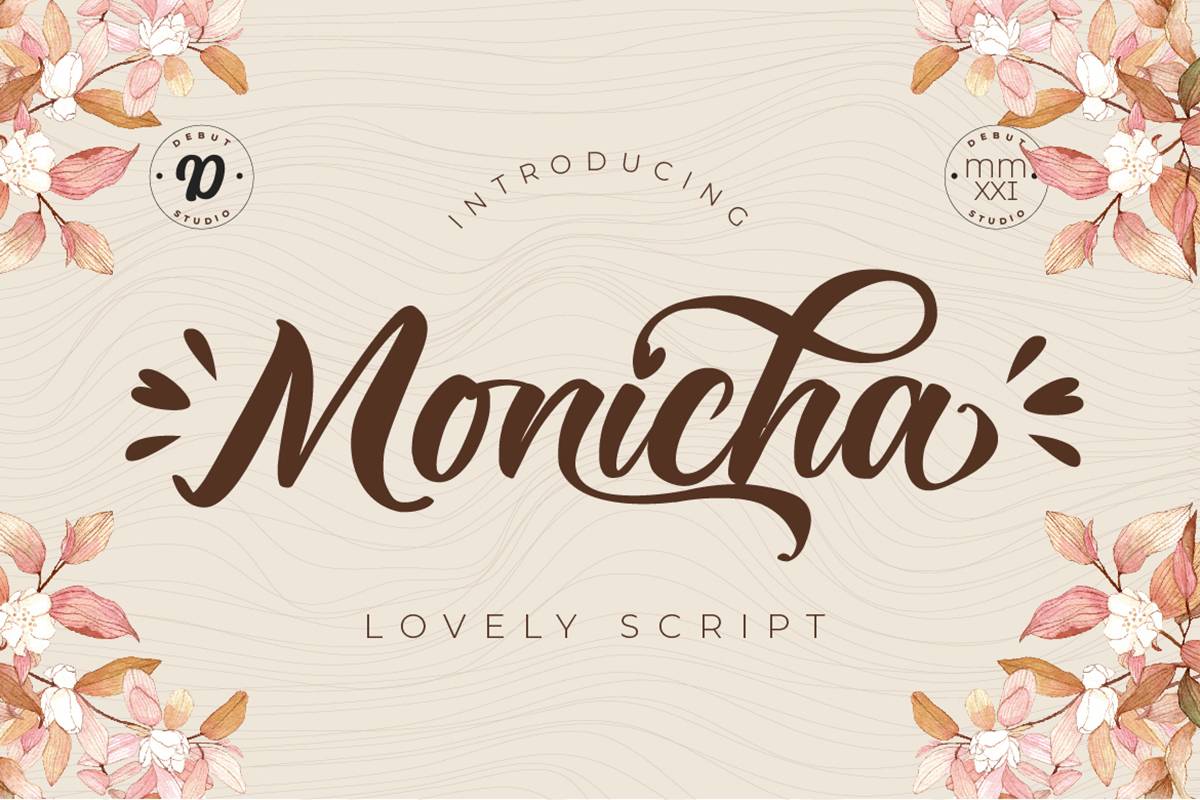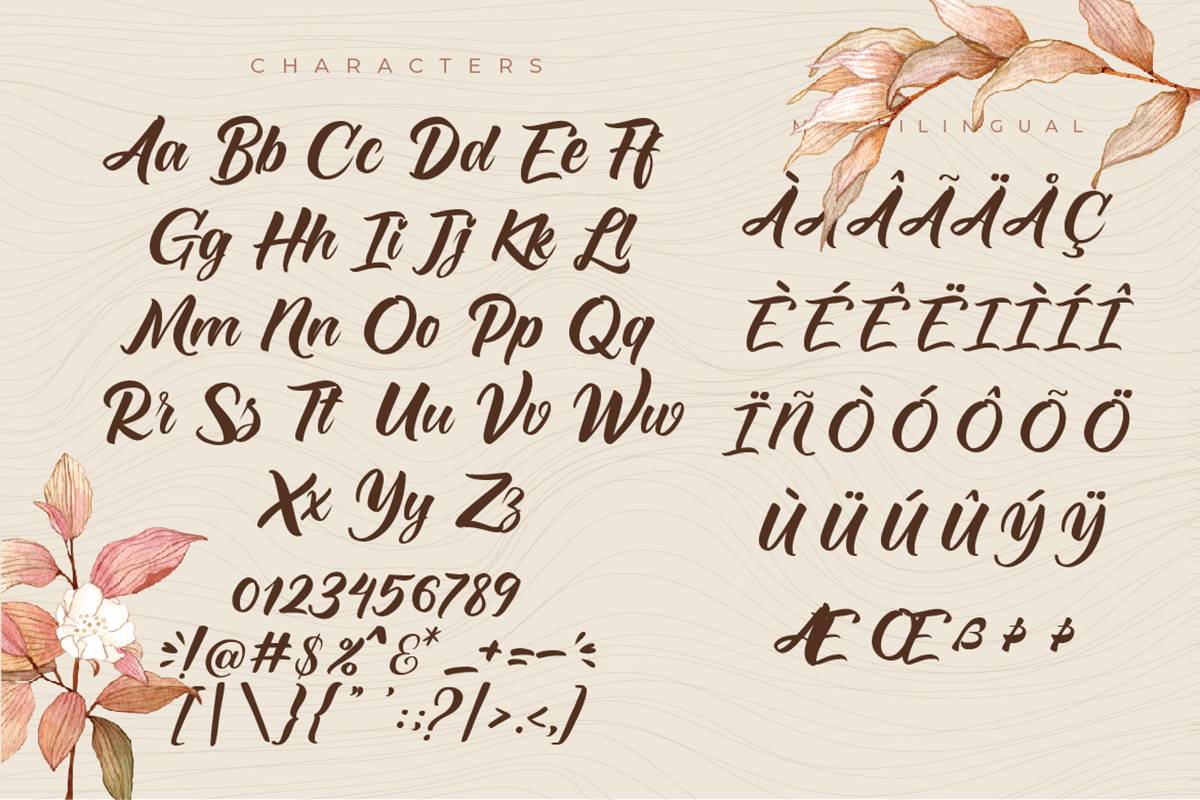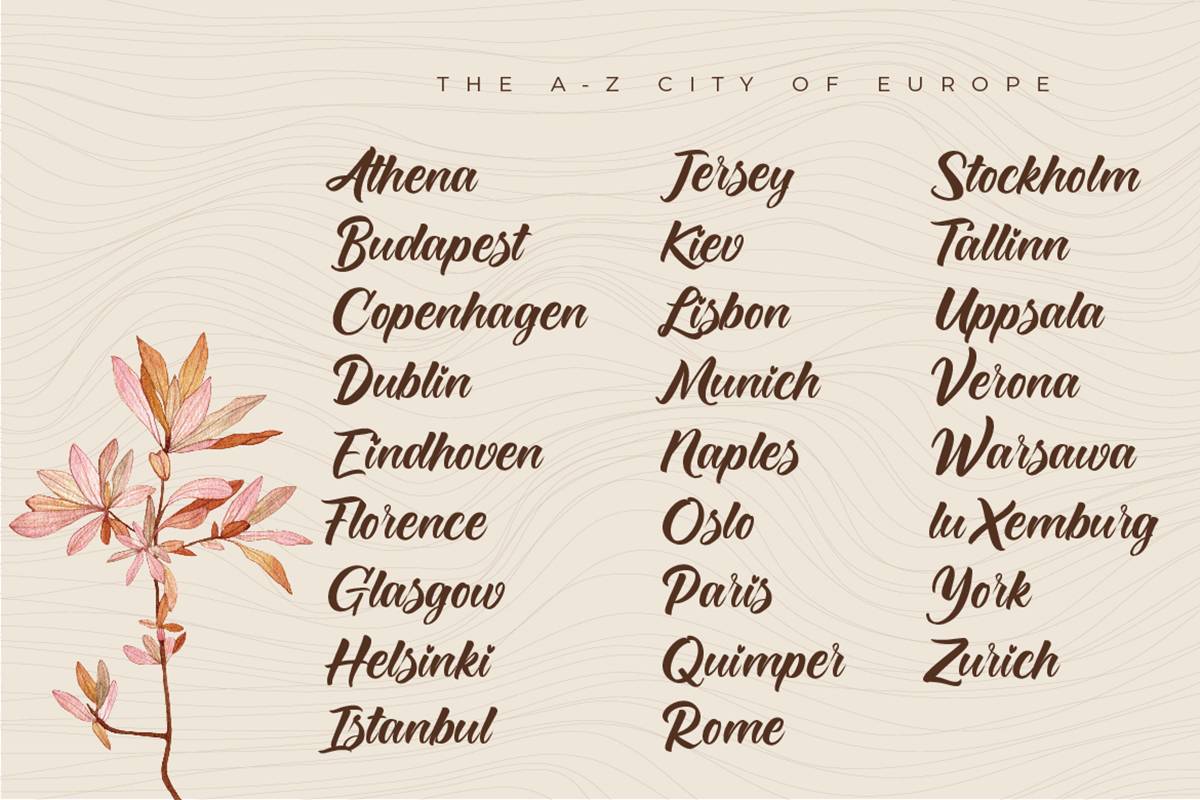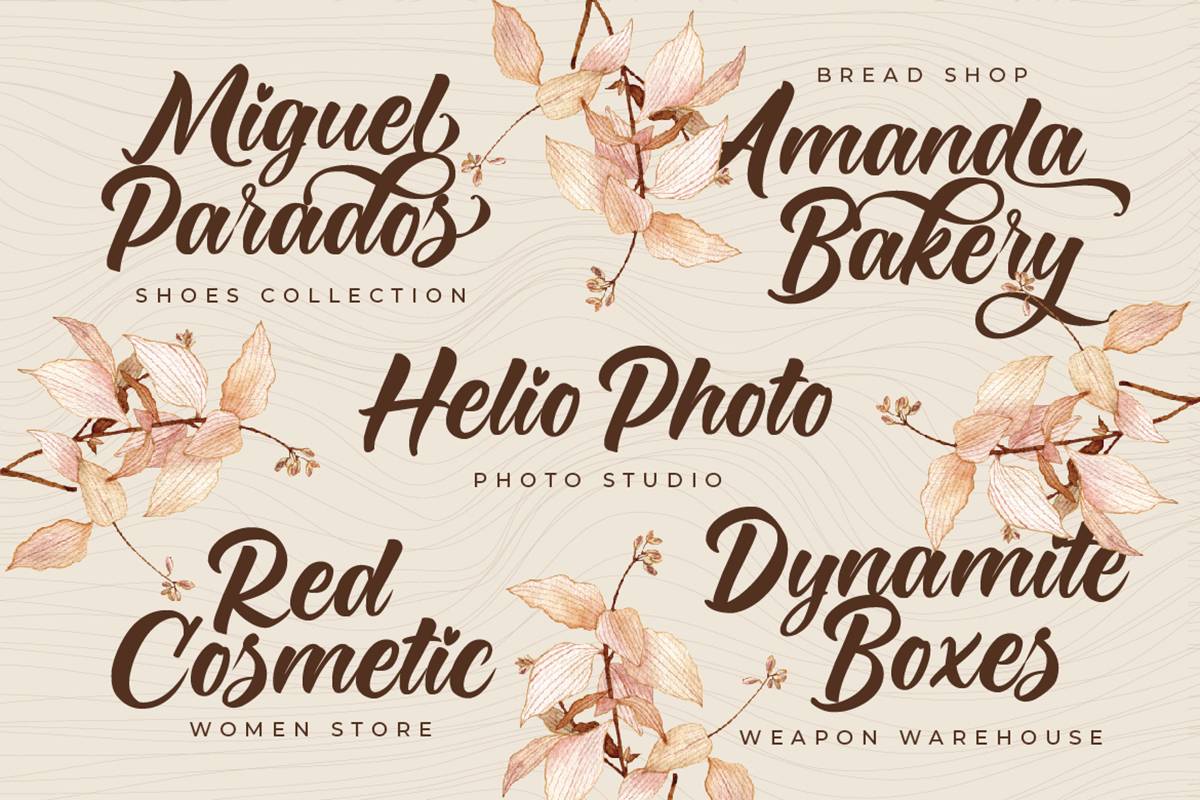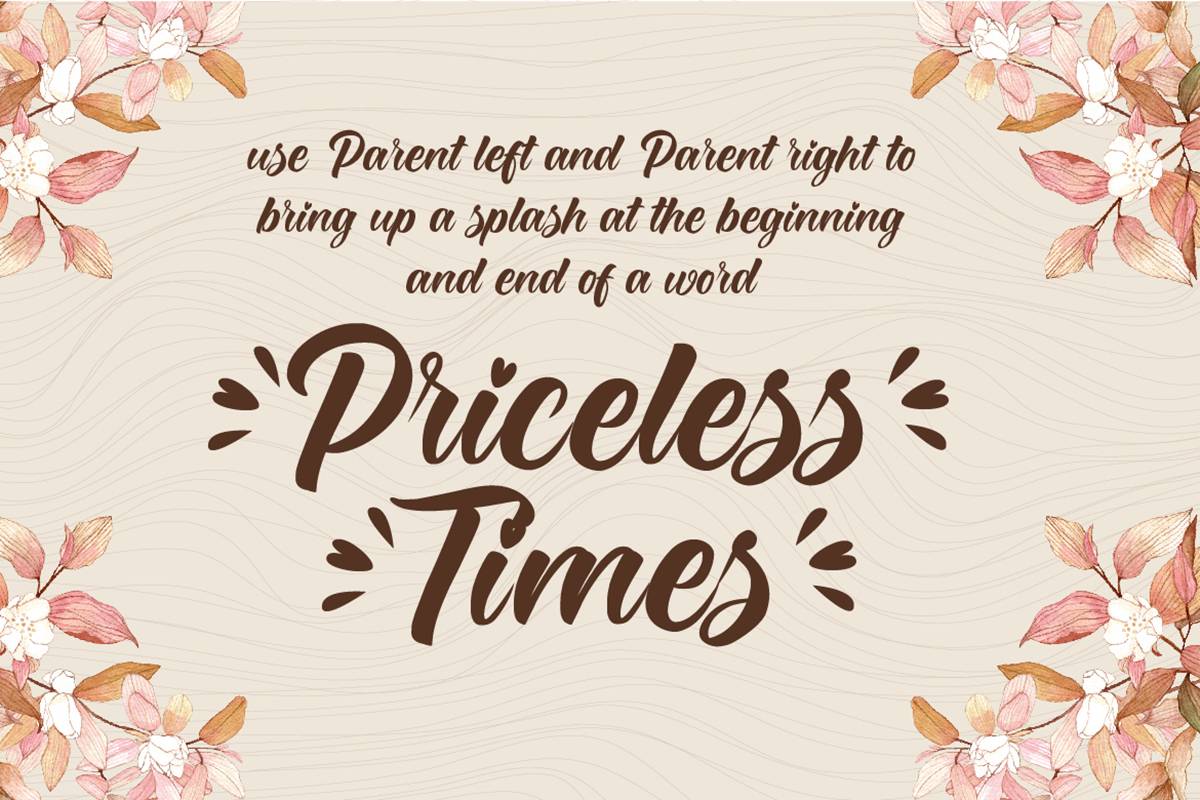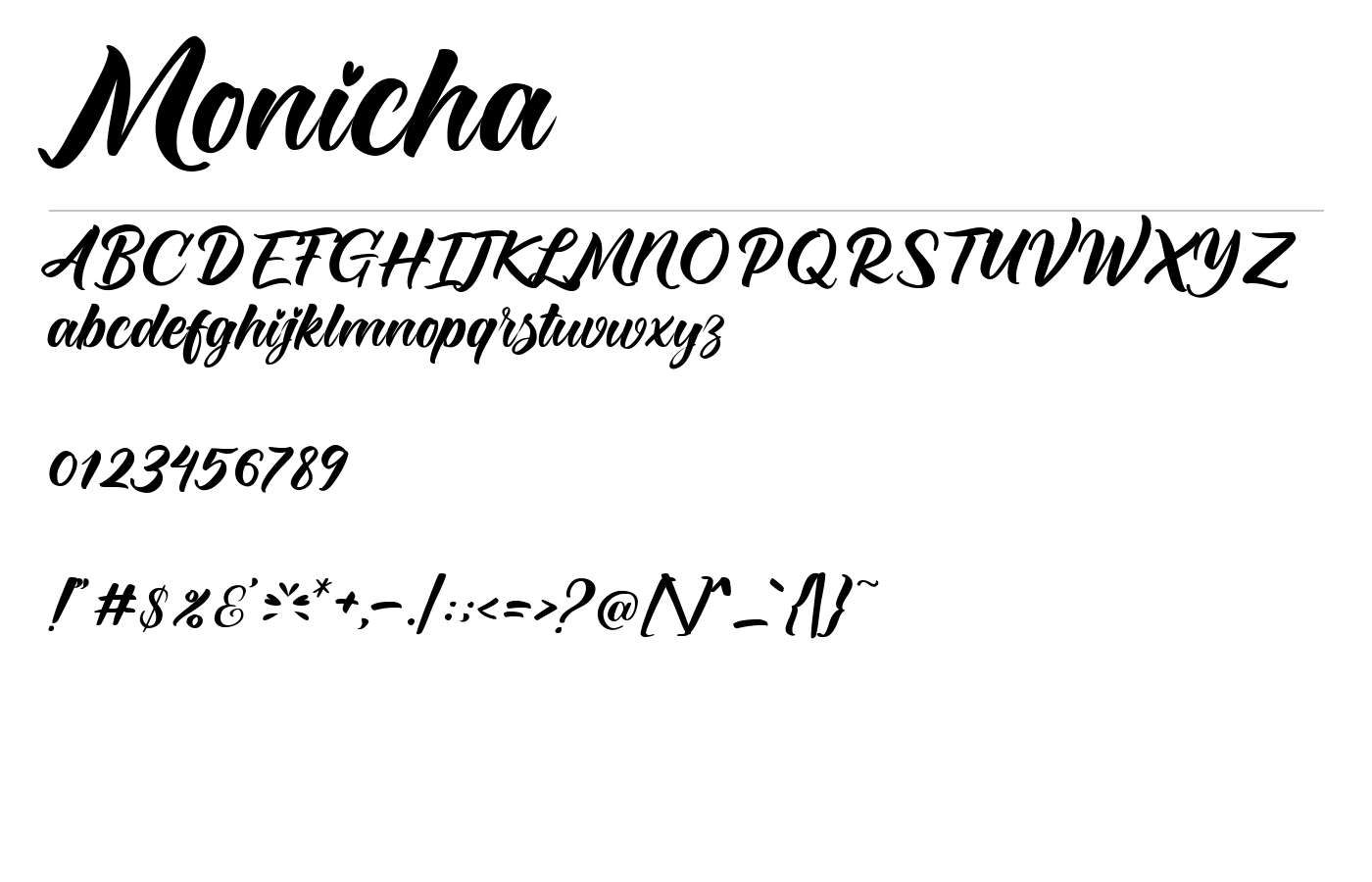
Monicha is an elegant and dynamic script font with a smooth, handwritten style that conveys warmth and personality. Its flowing strokes and moderate contrast make it perfect for creative projects like invitations, branding, and social media where a personal, stylish touch is desired. This font works well in both display and short text settings, adding a friendly yet sophisticated vibe to any design.
Monicha Font
About Monicha Font
| Font family | Monicha Font |
| Release date | 2021-02-06 |
| Designer | Ari Fadli |
| Trademark | Debut Studio |